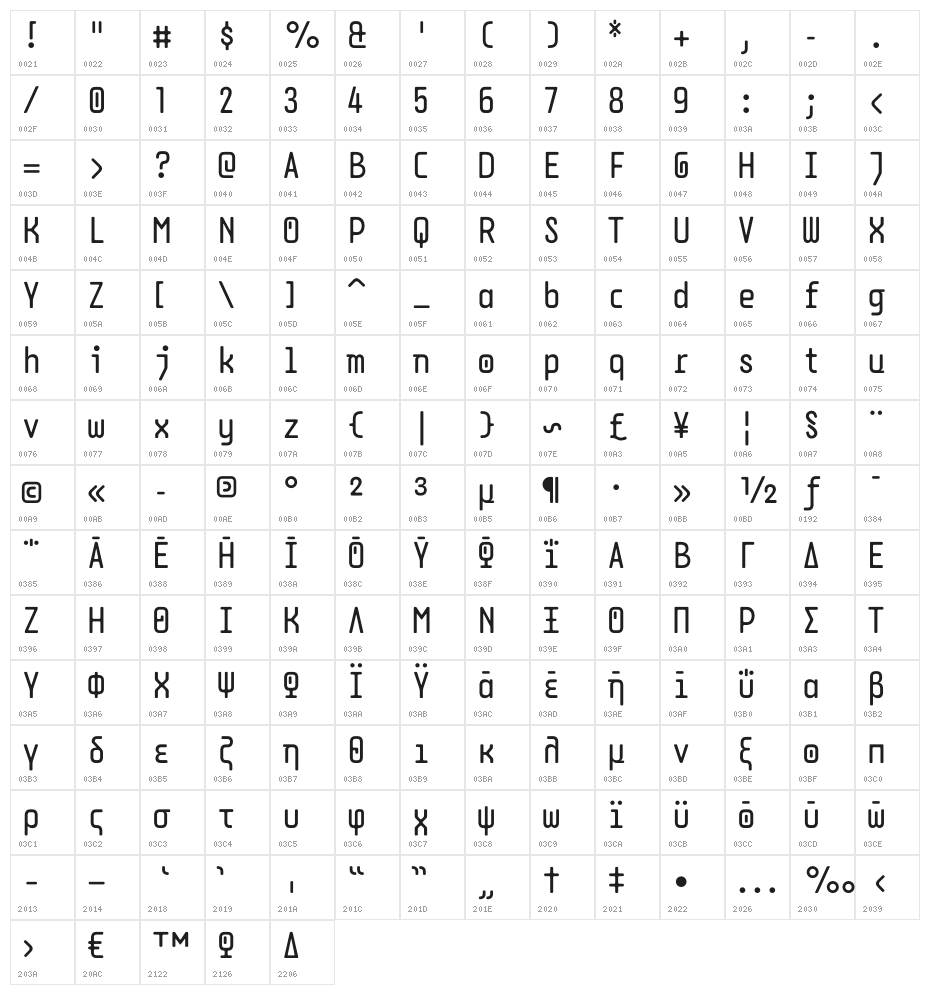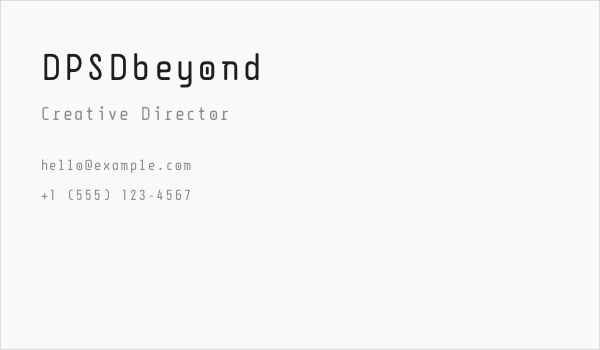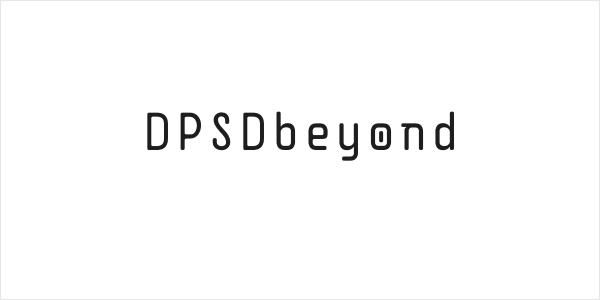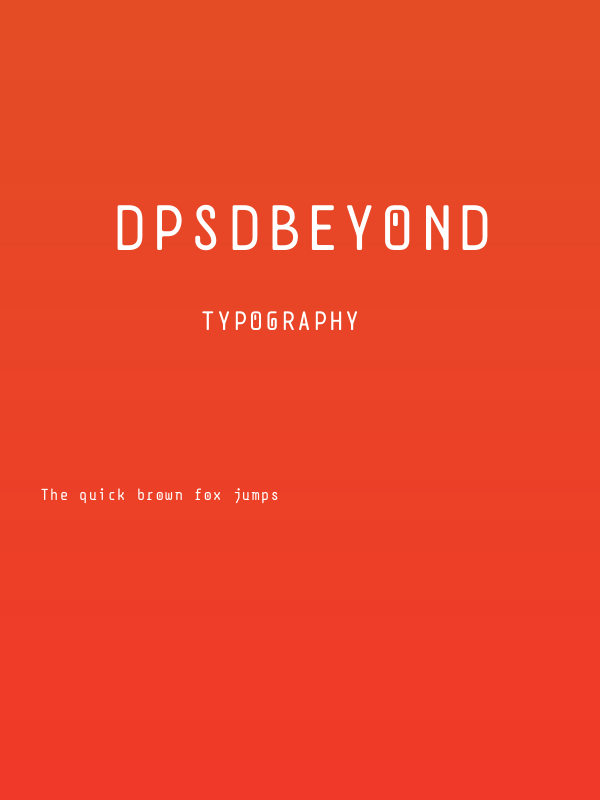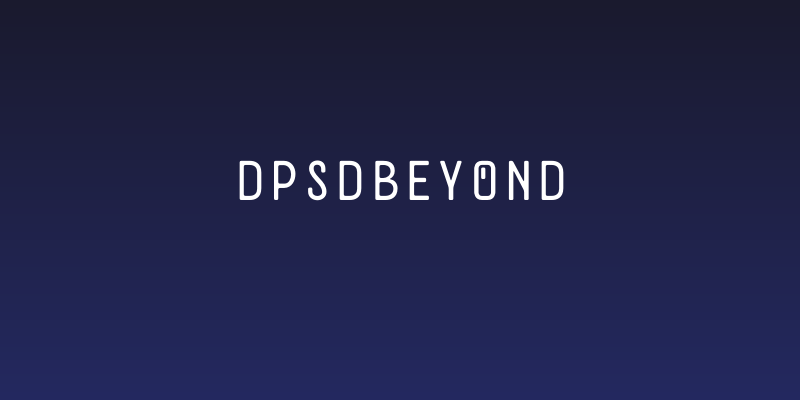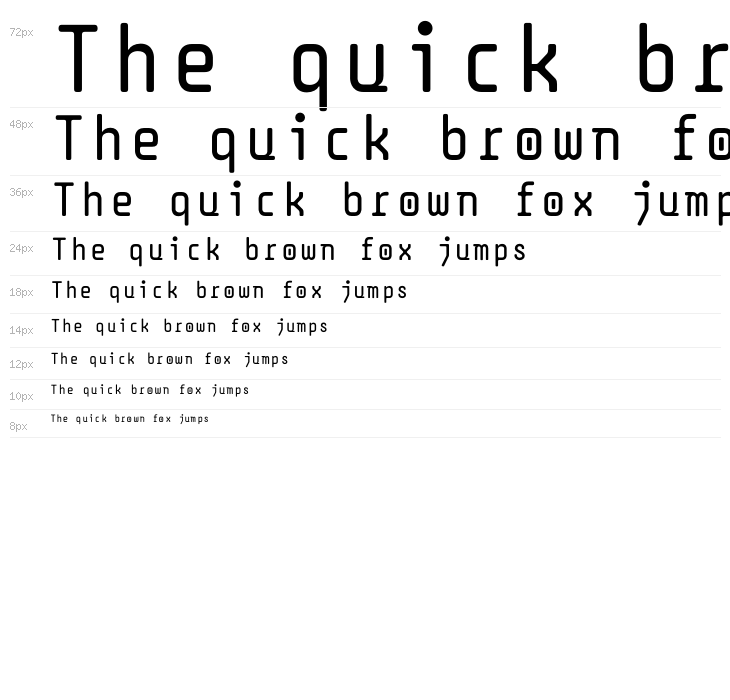
DPSDbeyond Font
DPSDbeyond Description
This font features a modern and clean design with rounded edges and a geometric structure. The uppercase letters are uniform in height, while the lowercase letters maintain a consistent baseline with slight variations in ascenders and descenders. The numerals are monospaced, ensuring even spacing, and the special characters are designed to complement the overall aesthetic. The font's simplicity and clarity make it highly legible, suitable for both digital and print media. Its contemporary style is versatile, fitting seamlessly into various design contexts.
| Proposed Projects | Ideal for tech branding, user interfaces, digital content, and modern advertising. |